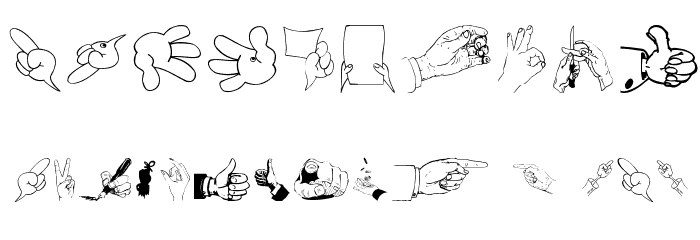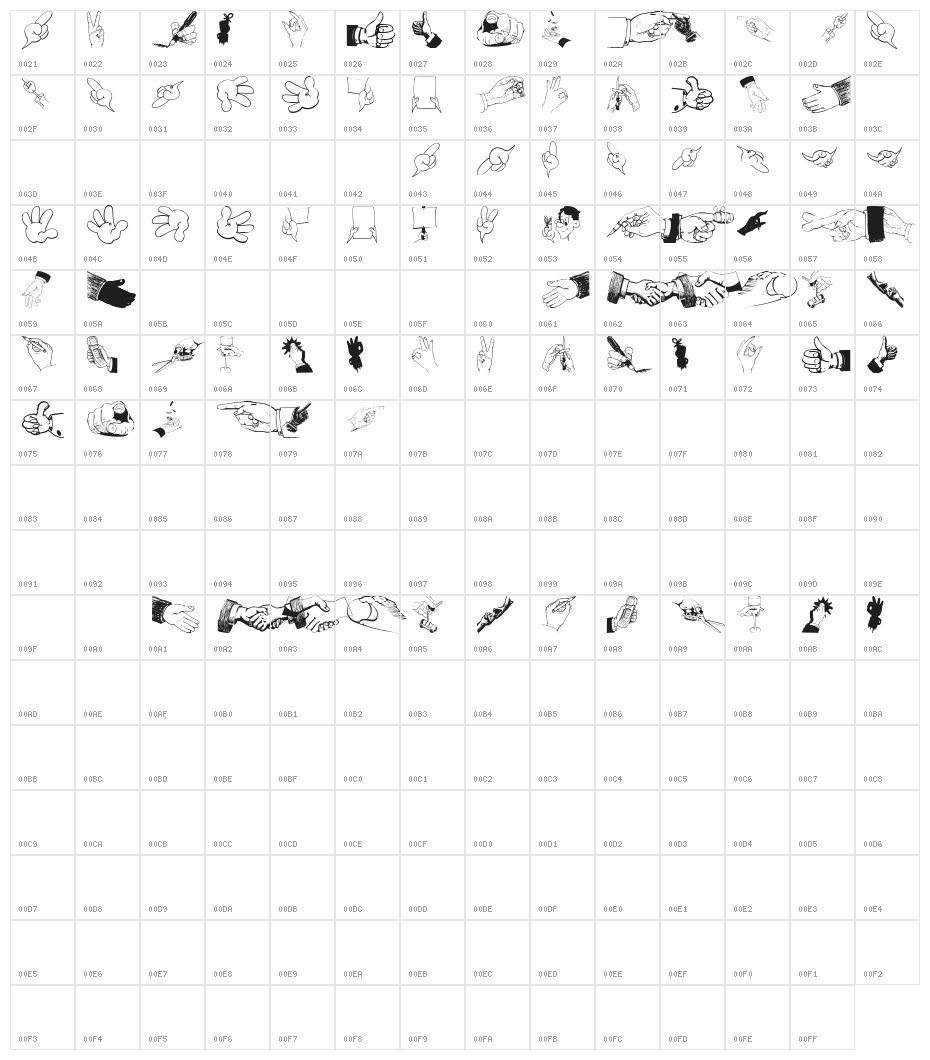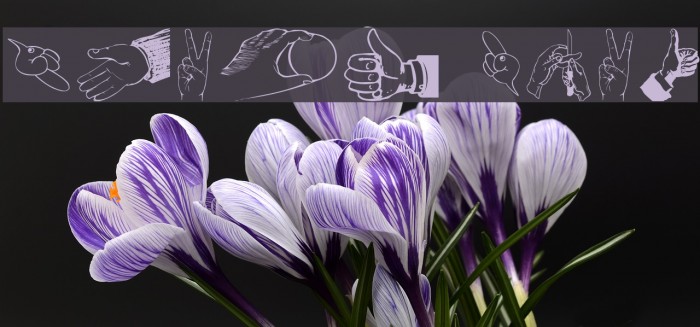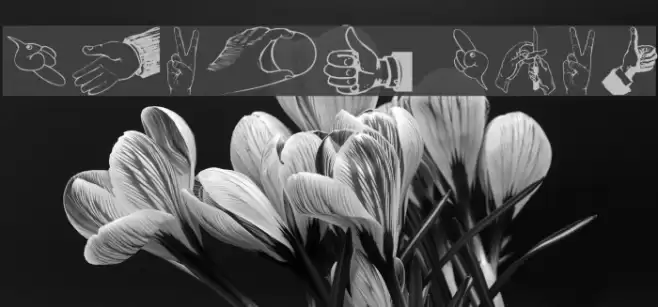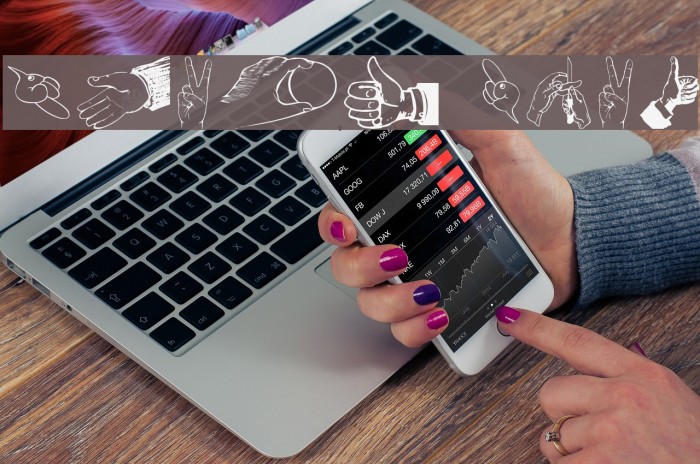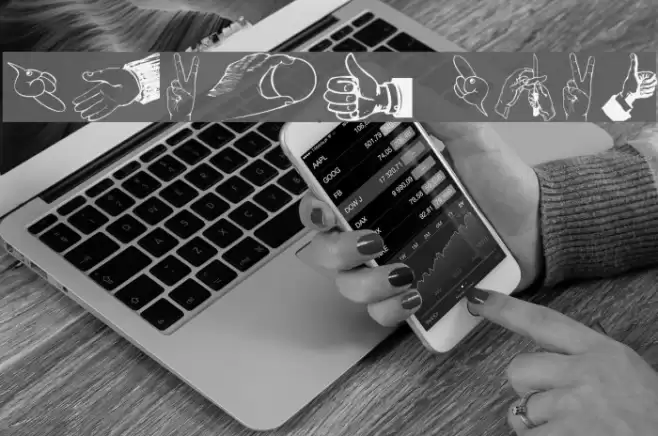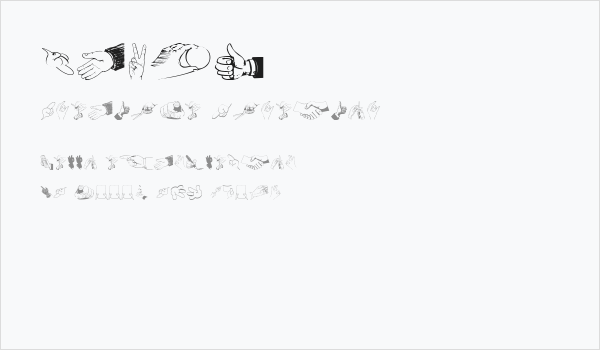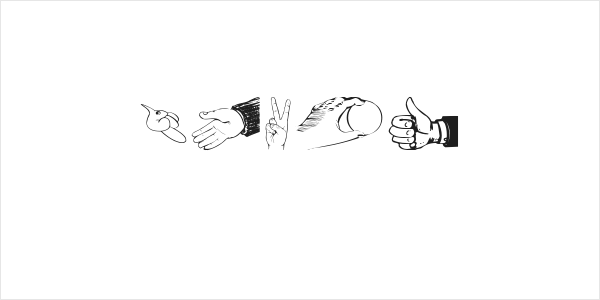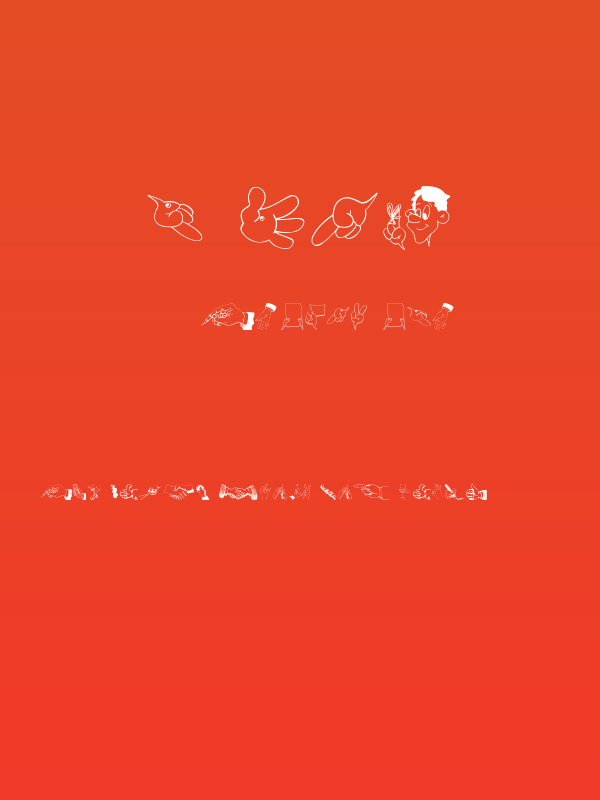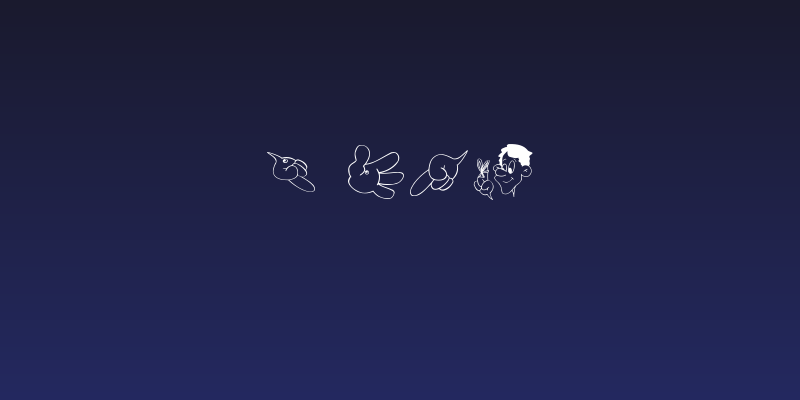
Hands Font
Hands Description
A playful and eclectic collection of illustrated hand gestures, featuring a mix of cartoonish, realistic, and stylized drawings. The set includes various hand signs, pointing, holding objects, and expressive gestures, with a mix of line weights and shading styles.
| Overall Style | Decorative, Playful, Eclectic |
| Use Case | Display, Illustrative accents, Thematic headings |
| Proposed Projects | Comics, posters, educational materials, playful branding, infographics, childrenΓ’β¬β’s books. |